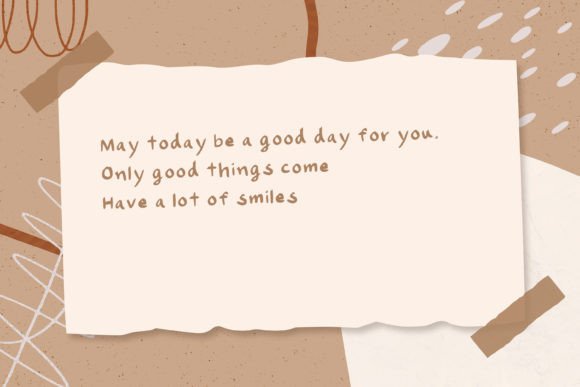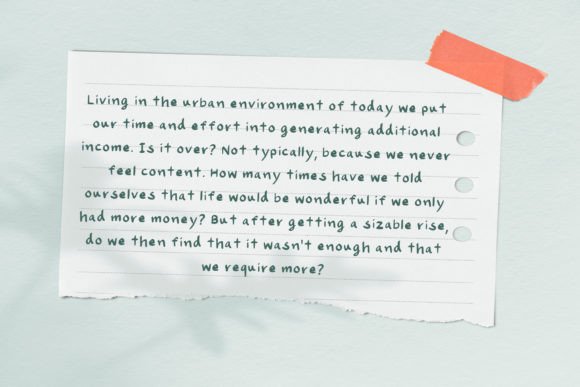
Fluffy Font
A Cute and Bold Handwritten Font
Fluffy Font is a cute and bold handwritten typeface designed to add a fun and approachable touch to your designs. With its rounded edges and bold strokes, this font is perfect for projects that need a playful and easy-to-read style. Whether you’re working on invitations, articles, or social media content, the Fluffy Font ensures your text stands out in a friendly, engaging way, making it suitable for a variety of creative and personal designs.
For invitations and greeting cards, the Fluffy Font brings a charming and welcoming vibe to your designs. Whether you’re creating birthday invitations, thank-you notes, or holiday greetings, this font adds a cute and fun element that captures attention. Its bold and round characters make it both easy to read and visually appealing, making your invitations feel special and memorable. The Fluffy Font is perfect for both casual and formal events that require a personalized touch.
Ideal for Articles and Informal Content
The Fluffy Font is also ideal for articles and informal content that requires clear and friendly typography. Whether you’re writing a blog post, magazine article, or newsletter, this font ensures your content is approachable and easy to read. Its bold and playful style adds a lighthearted feel to your text, making it perfect for engaging your audience with fun and informal content. The Fluffy Font helps make your articles stand out without sacrificing readability.
Great for Social Media Posts and Digital Content
For social media posts and digital content, the Fluffy Font ensures your graphics are both eye-catching and fun. Whether you’re creating Instagram posts, Facebook graphics, or Pinterest pins, this font adds a playful, bold style to your content that is sure to grab attention. Use it for quote graphics, event promotions, or advertisements to give your social media posts a unique and friendly look. The Fluffy Font helps your content feel approachable and engaging, making it perfect for platforms that require bold and fun visuals.
Ideal for Product Packaging and Merchandise
For product packaging and merchandise, the Fluffy Font adds a cute and memorable touch to your designs. Whether you’re designing labels, product titles, or merchandise for children’s products, this font gives your packaging a fun, playful look that draws attention. Its bold and readable design ensures that your product packaging is both visually appealing and easy to understand, perfect for businesses looking to add a touch of personality and charm to their products.
Versatile, Legible, and Fun
Despite its bold and cute style, the Fluffy Font remains legible and easy to use. Its well-spaced and rounded characters make it readable even at small sizes or when used in longer text passages. Whether you’re using it for headlines, captions, or body text, this font strikes the perfect balance between creativity and readability, making it suitable for a variety of design applications from print to digital media.
Add Fun and Personality to Your Designs with Fluffy Font
If you’re looking for a cute, bold handwritten font that adds a fun, approachable touch to your designs, the Fluffy Font is the perfect choice. Whether you’re designing invitations, articles, social media content, or product packaging, this font brings a playful, engaging element to your work. Let the Fluffy Font help you create memorable, creative designs that leave a lasting impression.